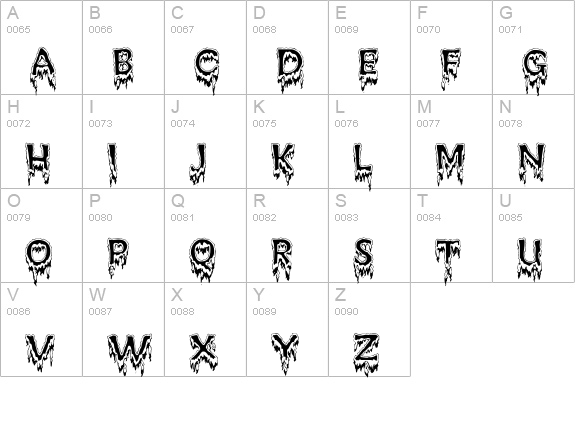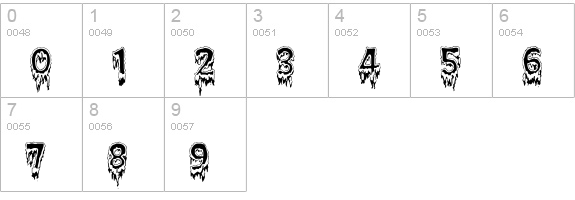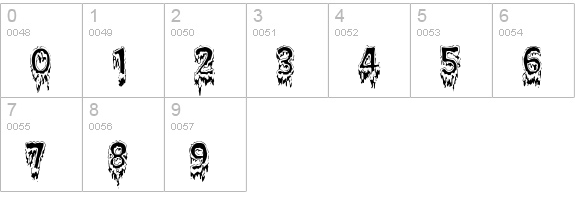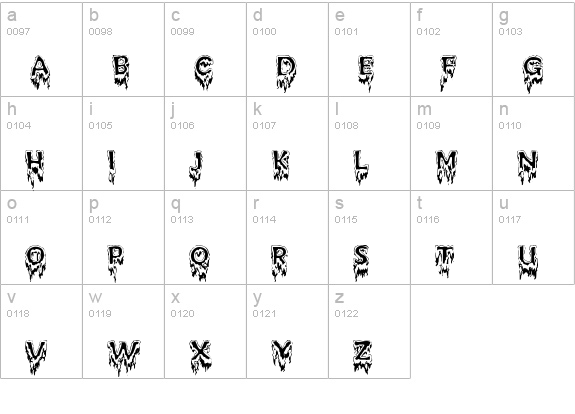
Kreepshow 'Frigid' Font Details
Introducing Kreepshow 'Frigid' font, a chilling and mysterious typeface that will give your designs an icy edge. This unique font features sharp, jagged edges and a frosty appearance, perfect for adding a touch of cold intensity to your projects. With a nod to horror and suspense, Kreepshow 'Frigid' font is ideal for creating chilling headlines, captivating logos, and atmospheric posters. Its bold and striking design will make a statement in any design, drawing the viewer in with its frosty allure. Best of all, Kreepshow 'Frigid' font is available for free download at FontsMarket.com, making it easily accessible for all your creative needs. Add a touch of frosty intrigue to your designs with this one-of-a-kind font today!